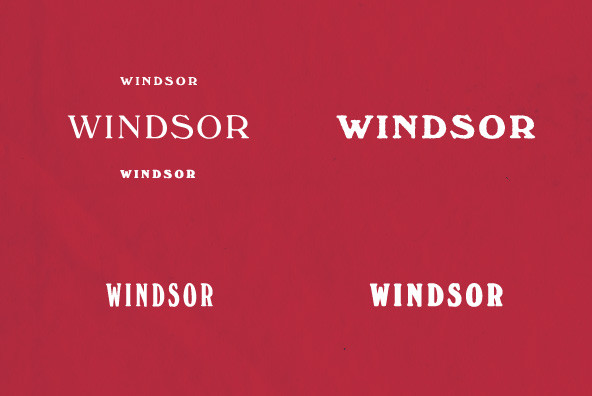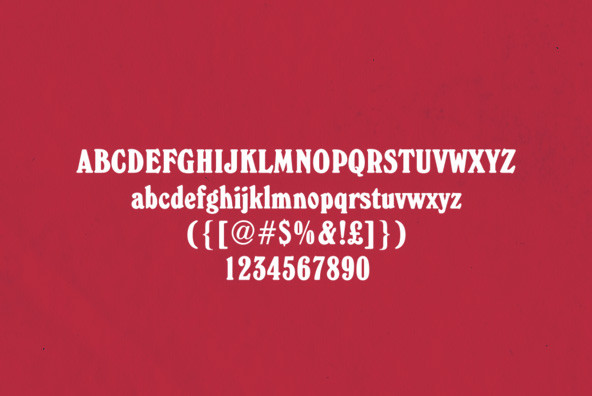
Windsor Font
Designed by Stephenson Blake in 1903, Windsor is a multi weight serif family released by URW. Contains language support for West, East, Turkish, Baltic, and Romanian.